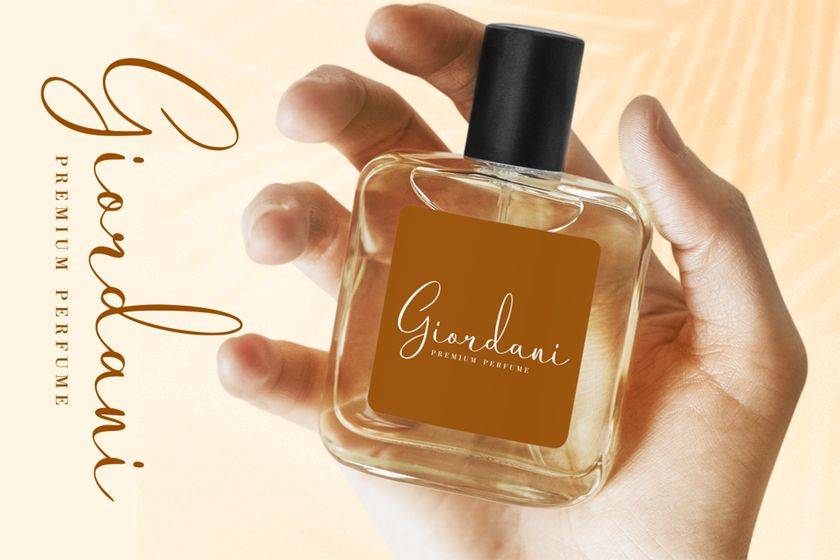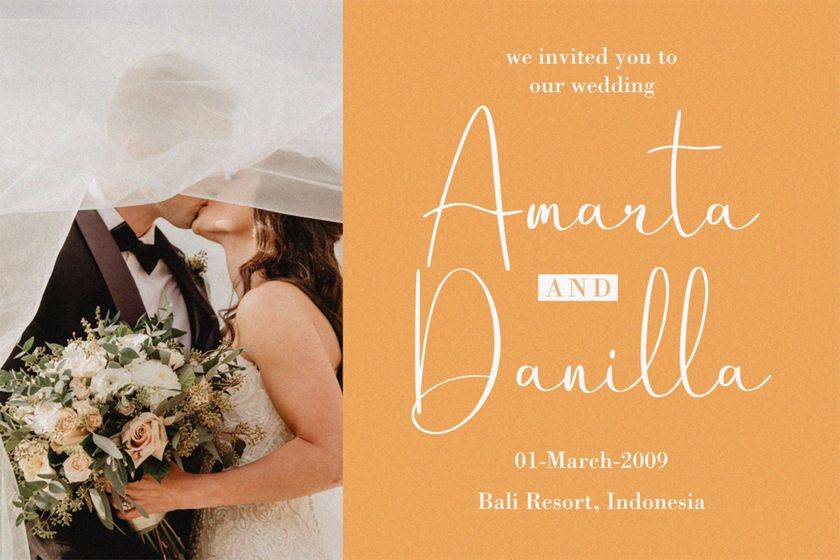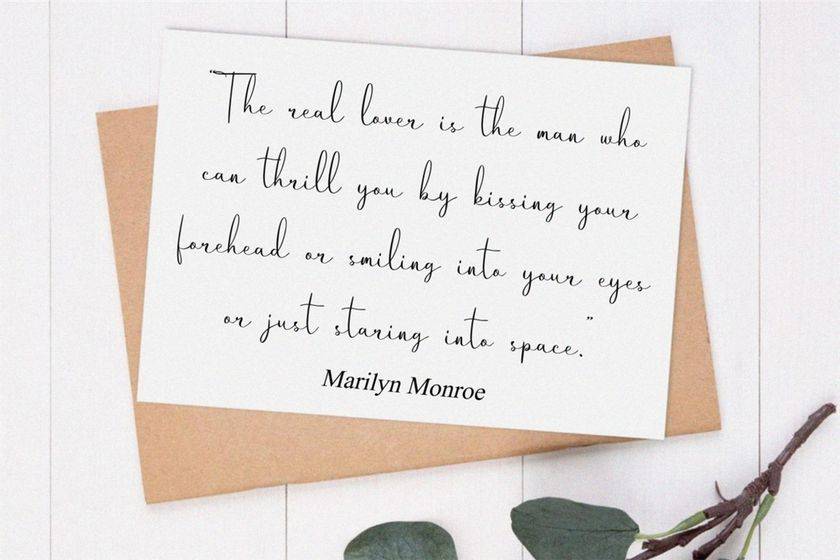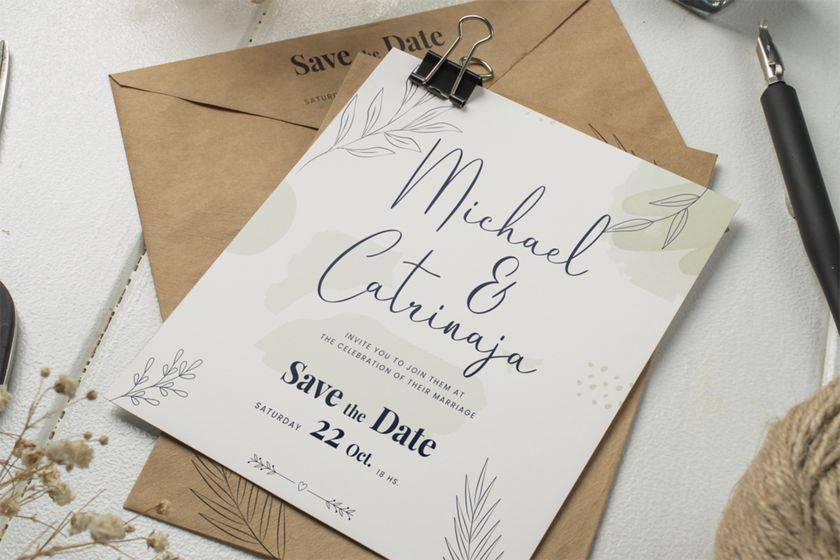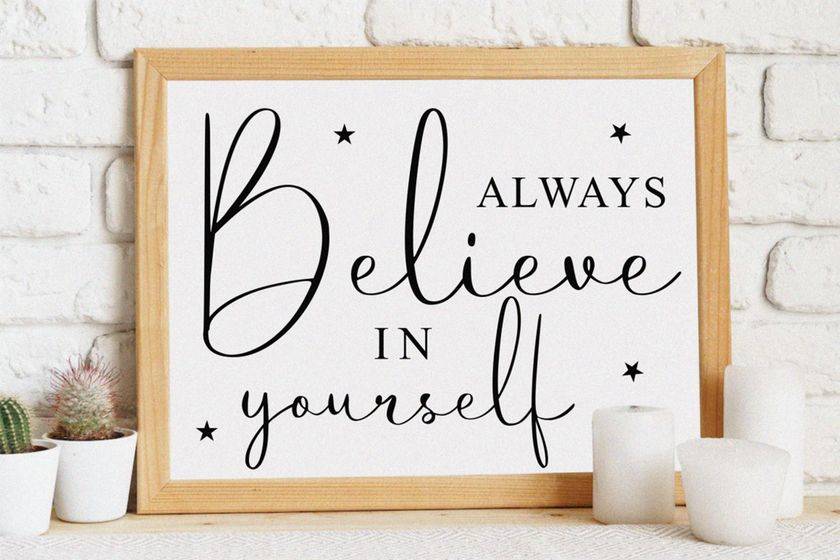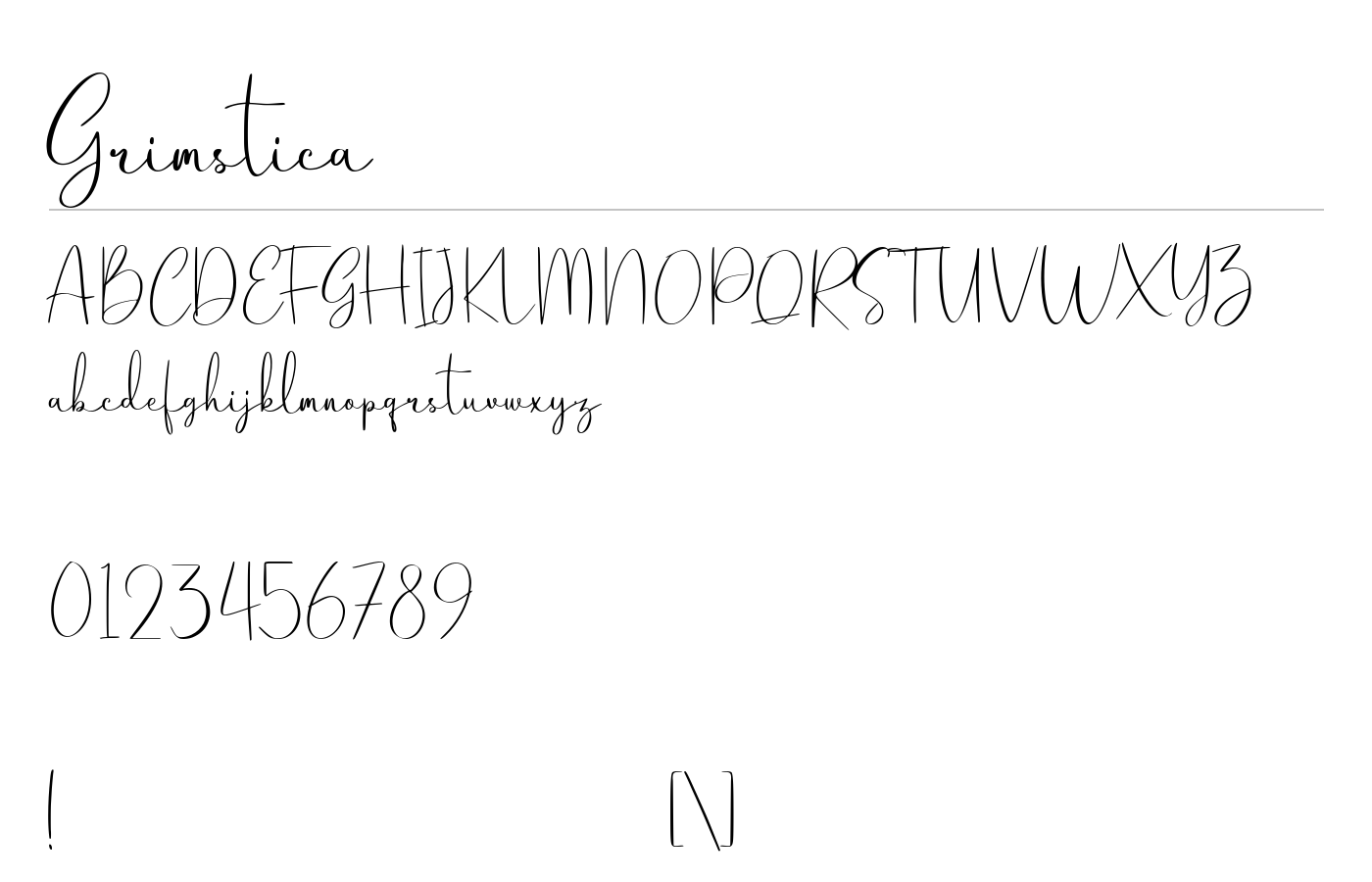
Grimstica is a delicate, handwritten script font with a light, airy feel characterized by thin strokes and tall, narrow letterforms. Its playful yet elegant style makes it ideal for personal branding, invitations, and creative projects where a touch of whimsy and sophistication is desired. This font works best in headlines and decorative text, adding a unique, handcrafted charm to designs.
Grimstica Font
About Grimstica Font
| Designer | Sulthan Mada Maulana Tsani |